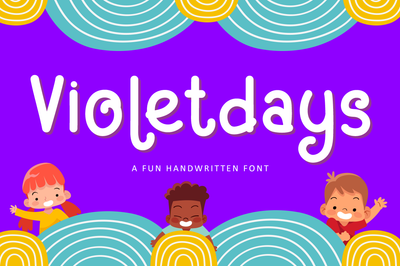
Violetdays - Kids Font
Present a new font Violetdays a handwritten font special for the kids theme promotion.
Violetdays is perfect for product packaging, branding project, magazine, social media, wedding, or just used to express words above the background.